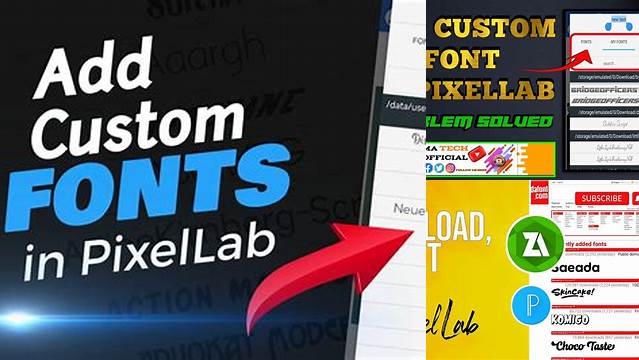
Add Fonts To PixelLab: A Simple Guide
Hey guys! Ever felt like the default fonts in PixelLab just don't cut it? Want to give your designs that extra oomph with a unique typeface? You're in luck! Adding custom fonts to PixelLab is a breeze, and this comprehensive guide will walk you through the process step-by-step. Adding custom fonts can truly elevate your designs in PixelLab, giving them a unique and professional touch. Imagine being able to use that perfect script font for a wedding invitation or a bold, modern font for a social media graphic. The possibilities are endless when you expand your font library beyond the pre-installed options. This article will not only guide you through the technical steps but also provide tips on finding the best fonts and managing them effectively. Whether you're a seasoned designer or just starting out, mastering this skill will significantly enhance your creative workflow in PixelLab. So, let's dive in and unlock the world of custom typography! We'll cover everything from finding reputable font sources to troubleshooting common issues you might encounter. By the end of this guide, you'll be a pro at adding fonts and using them to create stunning visuals. Remember, the right font can make all the difference in how your message is perceived, so investing time in learning this process is definitely worth it. Let's get started and make your PixelLab designs truly stand out!
Why Use Custom Fonts in PixelLab?
Let's talk about why using custom fonts is a game-changer. The built-in fonts are okay, but they can be a bitβ¦ generic. Custom fonts let you express your unique style and make your designs stand out. Think about it: you're crafting a logo for a new coffee shop, and you want a font that screams 'rustic' and 'handcrafted.' Or maybe you're designing a motivational poster and need a bold, impactful typeface. The standard fonts just might not cut it. Custom fonts open up a whole new world of possibilities, allowing you to convey the precise mood and message you're aiming for. Plus, using unique fonts can help your brand identity. Consistent use of a specific font across all your marketing materials can make your brand more recognizable and memorable. It's like having a visual signature that people associate with your work. It's not just about aesthetics either; readability is key. Sometimes a custom font can improve the overall readability of your text, especially if you're working with specific design constraints or a particular audience. Imagine designing a children's book β a playful, easy-to-read font will make a huge difference compared to a formal, serif typeface. And let's be honest, exploring new fonts is just plain fun! It's like discovering a new set of colors or brushes in a painting program. It sparks creativity and allows you to experiment with different styles and effects. So, if you're serious about taking your PixelLab designs to the next level, custom fonts are an absolute must. They're the secret ingredient that can transform a good design into a great one. Trust me, once you start using them, you'll wonder how you ever managed without them!
Finding the Right Fonts
Now, where do you find these amazing custom fonts? The internet is your oyster, but here's the lowdown on reputable sources. Sites like Google Fonts, DaFont, and Font Squirrel are treasure troves of free fonts. They offer a huge variety, from elegant scripts to bold display fonts. Google Fonts is particularly awesome because it's specifically designed for web use, so you know the fonts will look good on screens. DaFont is another fantastic option, with a massive selection categorized by style, theme, and even popularity. Font Squirrel is great for finding fonts that are licensed for commercial use, which is crucial if you're using your designs for business purposes. But before you go font-crazy, a word of caution: always check the license! Some fonts are free for personal use but require a license for commercial projects. It's super important to respect the font creator's terms. Imagine spending hours on a design, only to realize later that you can't use it because of a licensing issue. Save yourself the headache and double-check the fine print. When browsing fonts, think about the overall style you're going for. Are you creating something modern and minimalist? Or perhaps something vintage and whimsical? Filter your search based on these criteria to narrow down your options. Don't be afraid to download a bunch of fonts and try them out. Experiment with different combinations and see what works best for your project. It's like trying on clothes β you might be surprised by what looks good! And finally, organize your fonts! Create folders on your device to categorize them by style or project. This will save you tons of time in the long run when you're searching for that perfect font. Trust me, a little organization goes a long way when you have a growing font collection.
Step-by-Step Guide to Adding Fonts to PixelLab
Tips for Managing Your Fonts
Let's talk about font management β because let's face it, a disorganized font library is a recipe for chaos! Imagine scrolling through hundreds of fonts every time you want to choose one. Not fun, right? The best way to manage your fonts is to create a well-organized folder system on your device. Think of it like your digital filing cabinet for fonts. Create main folders for different font styles, such as 'Serif,' 'Sans-Serif,' 'Script,' 'Display,' etc. Then, within those folders, you can create subfolders for specific projects or themes. For example, you might have a 'Wedding Fonts' subfolder or a 'Logo Fonts' subfolder. This level of organization makes it super easy to find the perfect font for any project. Another handy tip is to use descriptive names for your font files. Instead of just 'font1.ttf,' rename the file to something like 'OpenSans-Bold.ttf.' This makes it much easier to identify the font later on. Previewing fonts before you use them is also crucial. PixelLab shows you a preview in the font list, but sometimes you might want a larger preview. There are font management apps available that allow you to preview fonts in various sizes and styles. This can save you time and prevent you from choosing a font that doesn't quite fit your needs. Periodically clean out your font library. If you have fonts that you haven't used in months (or ever!), it's time to say goodbye. Delete them to free up space and keep your font list manageable. Consider using a cloud storage service like Google Drive or Dropbox to back up your font collection. This ensures that you won't lose your precious fonts if something happens to your device. And finally, stay updated! New fonts are being released all the time, so make it a habit to browse font websites and discover fresh typefaces. Managing your fonts effectively is an investment in your creative workflow. A well-organized font library will save you time, reduce stress, and ultimately help you create better designs. So, take a few minutes to get your fonts in order β you'll thank yourself later!
So, there you have it! You're now equipped with all the knowledge you need to add custom fonts to PixelLab and manage them like a pro. Remember, using custom fonts is a fantastic way to elevate your designs and express your unique style. It opens up a world of creative possibilities and allows you to create visuals that truly stand out. We've covered everything from finding reputable font sources to troubleshooting common issues, so you should be well-prepared for any font-related challenges that come your way. Just to recap: download fonts in TTF or OTF format, move them to the PixelLab Fonts folder, and restart PixelLab. If you encounter any problems, double-check the file format and directory, and don't hesitate to consult the troubleshooting tips we discussed. Managing your fonts effectively is also key to a smooth design workflow. Organize your fonts into folders, use descriptive names, and preview them before using them in your projects. And remember, exploring new fonts is always a fun and inspiring experience. So, go out there, discover some amazing typefaces, and let your creativity flow! Whether you're designing logos, social media graphics, or anything in between, custom fonts can make a huge difference. They're the secret ingredient that can transform a good design into a great one. I hope this guide has been helpful and informative. Now, go forth and create some stunning visuals with your newfound font mastery! Happy designing, guys! And don't forget to share your creations β we'd love to see what you come up with!